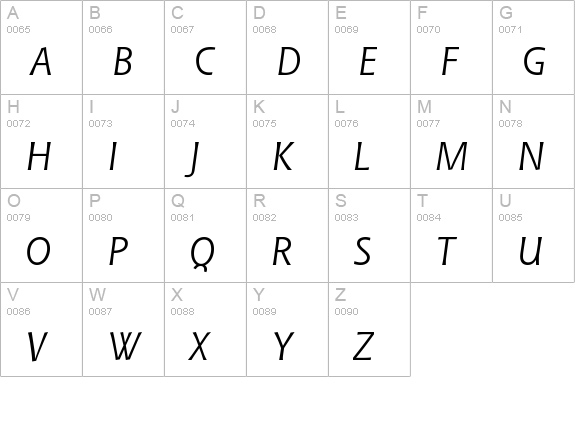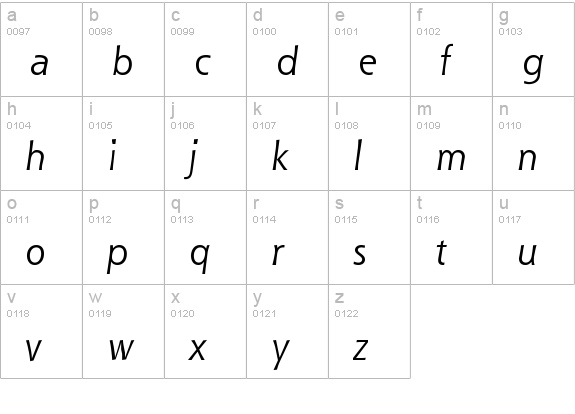
Shannon Oblique Font Details
Shannon Oblique is a distinctive, italic variant in the Shannon typeface family \xE2\x80\x94 well suited to design and typography projects.
Shannon Oblique font is a stunning display font that exudes elegance and sophistication. With its unique slanted design, this font adds a touch of modernity and dynamism to any project. The beautiful curves and angles of Shannon Oblique make it perfect for eye-catching headlines, stylish logos, and captivating branding materials. Whether you're designing a fashion magazine, a high-end website, or a luxury product packaging, this font will undoubtedly elevate the overall aesthetic and make a lasting impression. One of the best things about Shannon Oblique font is that it is completely free! Yes, you read that right. This exquisite font is freely available to download at FontsMarket.com. So, you can bring a touch of class to your designs without breaking the bank. With Shannon Oblique font, you have the freedom to explore your creativity and create visually striking designs. Its versatility and versatility make it suitable for a wide range of projects, from print to digital media. Don't miss out on the opportunity to enhance your designs with Shannon Oblique font. Download it for free today at FontsMarket.com and unleash your artistic potential. Let this font be your secret weapon in creating breathtaking visuals that leave a lasting impression on your audience.